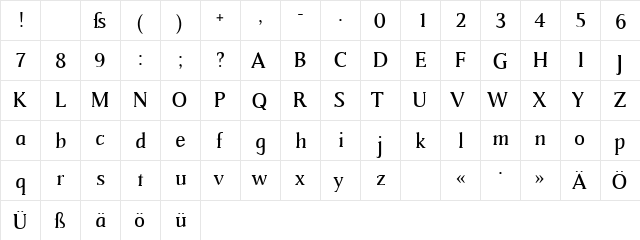
Catherine Regular
Design Context for Catherine Typeface
Catherine takes a measured approach to typography — its balanced proportions and neutral character make it a reliable workhorse for both digital and print work.